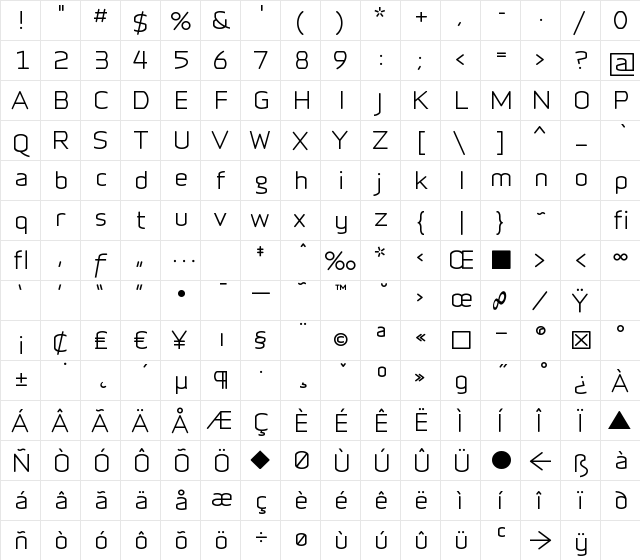
Infinity-T-M Regular
Design Context for Infinity-T-M Typeface
Infinity-T-M offers clean, dependable letterforms without strong stylistic allegiance, making it a practical choice for designers who need flexibility.